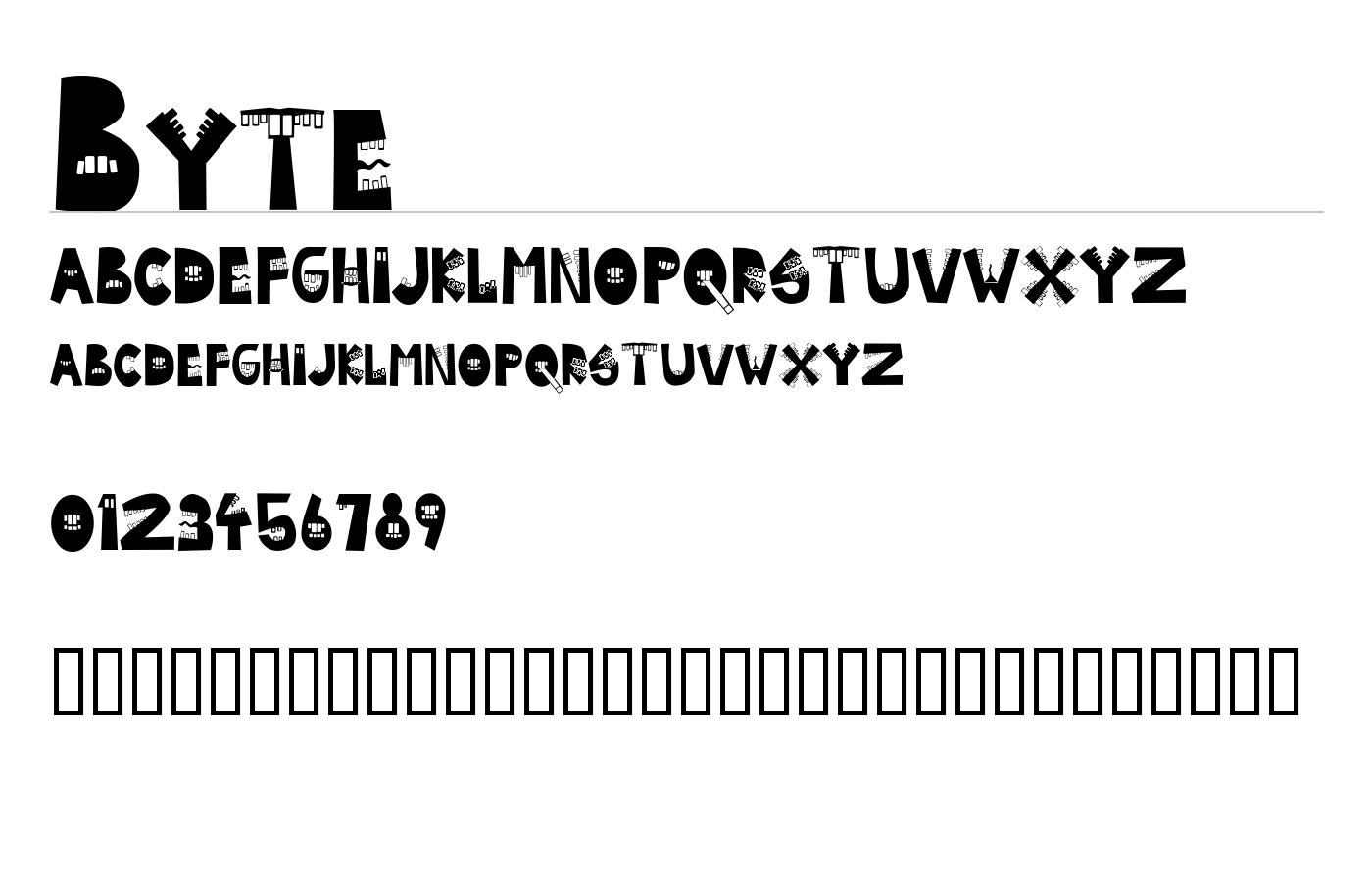
Byte Font is a bold, playful sans serif typeface featuring quirky, geometric letterforms with uneven edges and unique digital-inspired decorative elements that evoke a techy, retro vibe. Its heavy weight and lively personality make it perfect for attention-grabbing headlines, logos, and creative projects that aim to stand out with a fun and modern twist. This font works best in display contexts where its distinctive style can shine and add character.
Byte Font